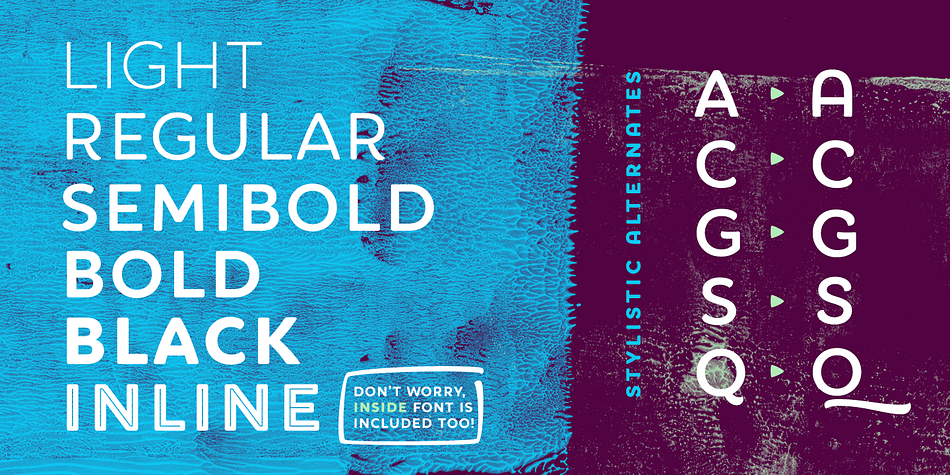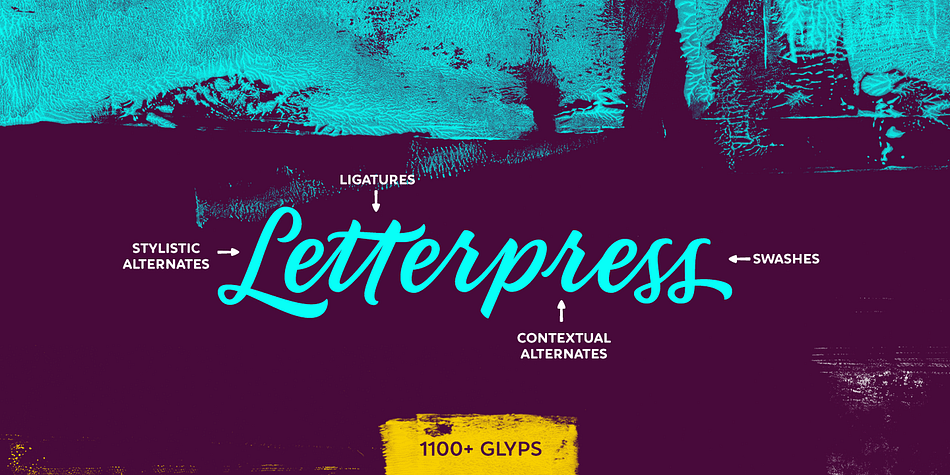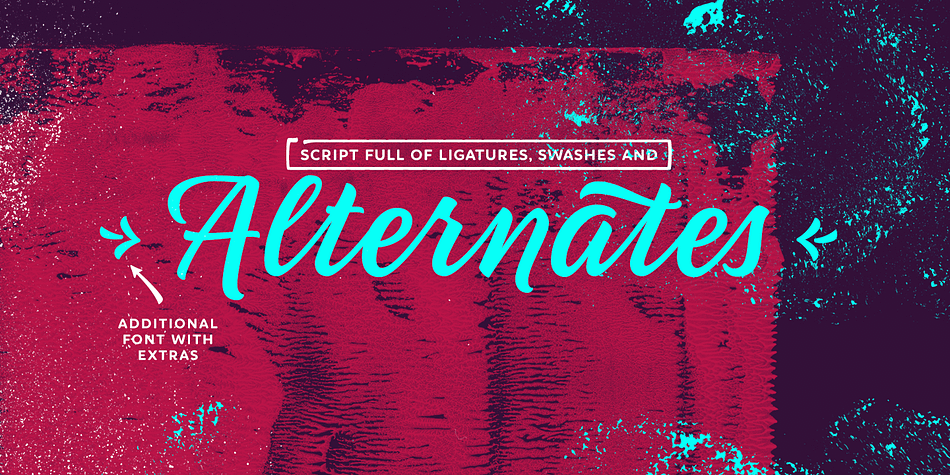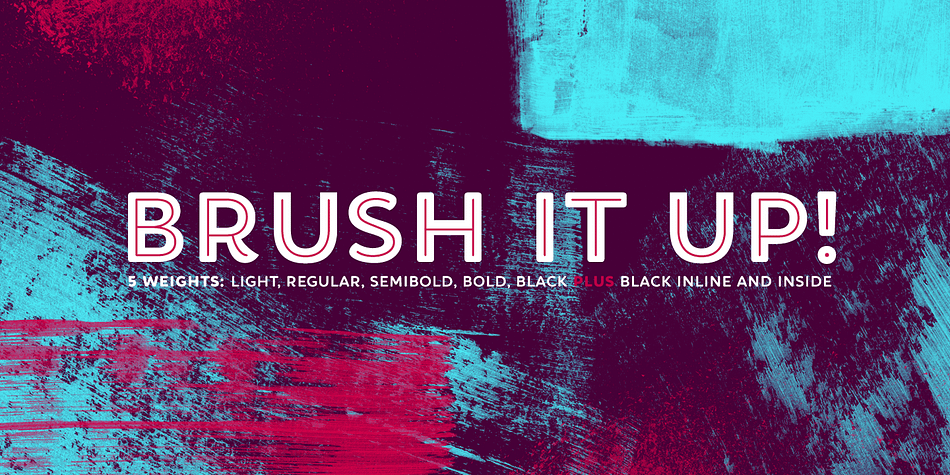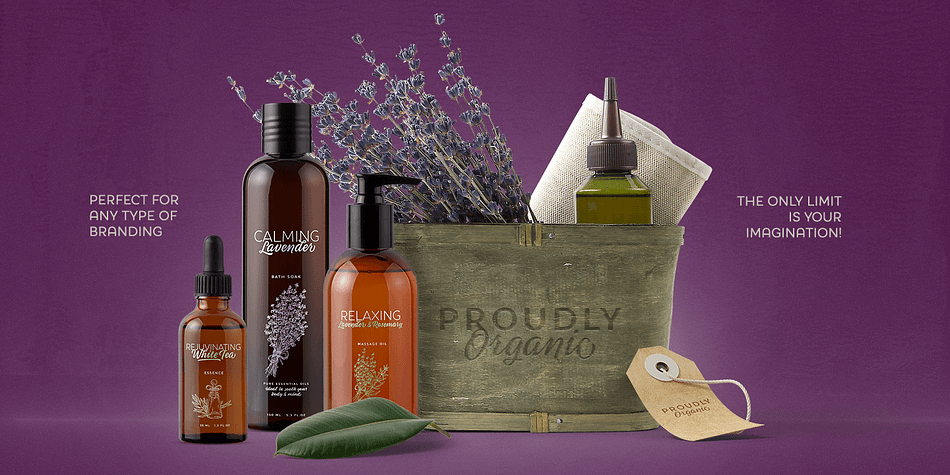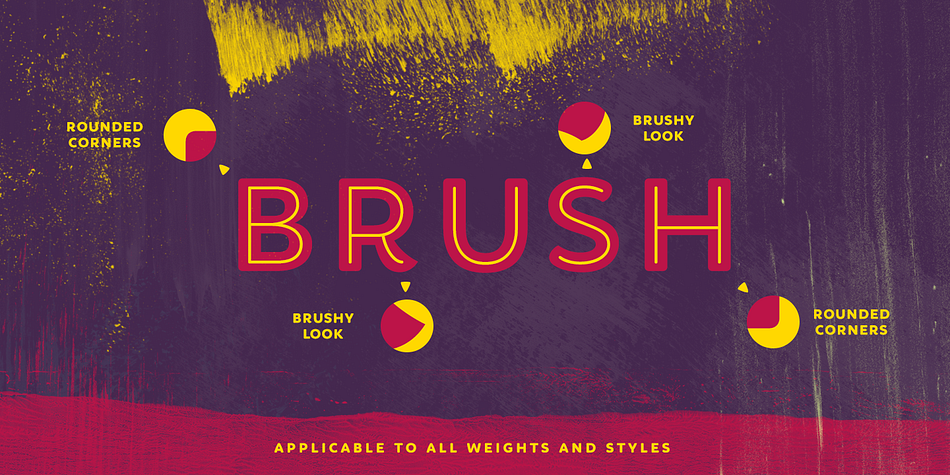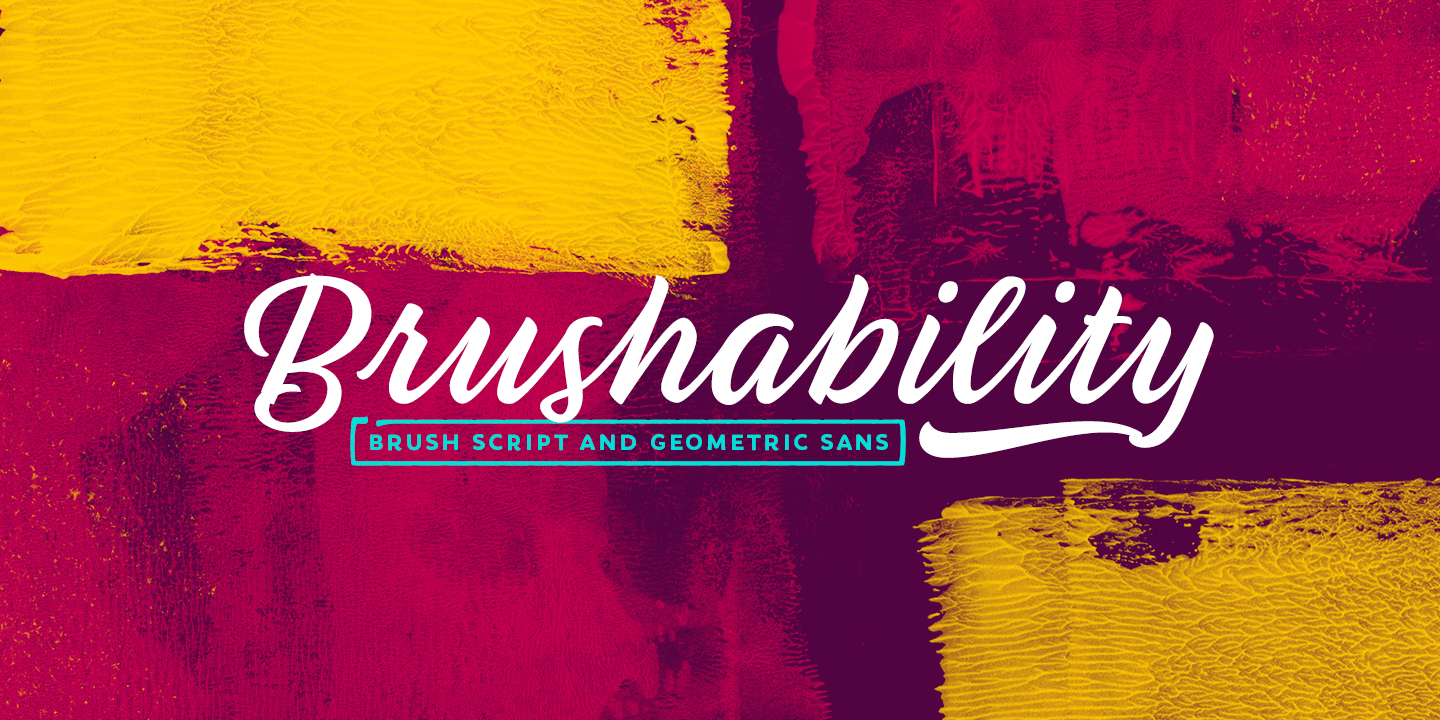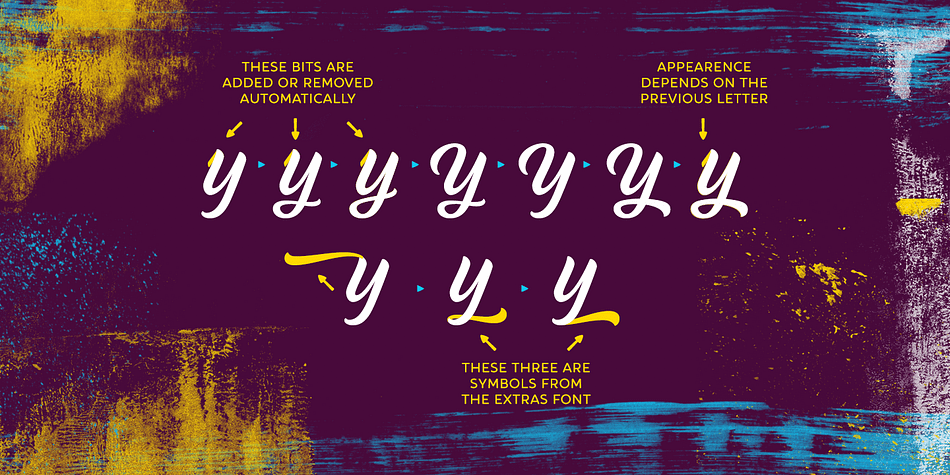
Brushability is a dingbat, brush script and display sans font family. This typeface has nine styles and was published by My Creative Land.
The Brushability is a brush-written font family that contains 9 fonts, all united by a brushy look. All fonts compliment each other perfectly and can be used either together or with many other brush-looking fonts on the market.
The script contains a lot of alternates, swashes, ligatures, arrows etc. while the Extras font has quite a few design elements with the same brush look - such as arrows, frames, and swashes - to add more personality to the design.
The 5 sans serif fonts (ranging from Light to Black) also contain alternate glyphs for certain letters - just to make your design process even more fun.